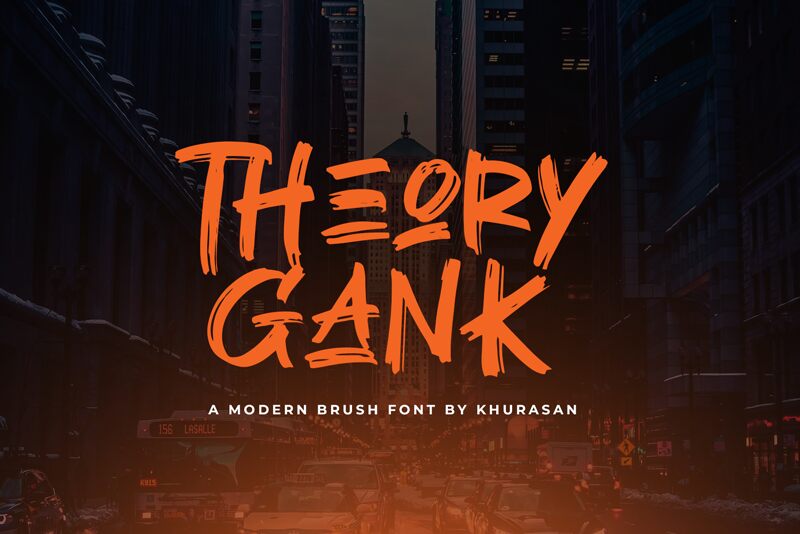
Theory Gank
Theory Gank, a dynamic creation by Khurasan, stands out with its expressive brush style that captures the spontaneity and energy of hand-painted strokes. The font's textured edges and varying line weights evoke a sense of artistic flair, making it an excellent choice for projects that require a personal touch with a modern twist.
Its aesthetic appeal lies in the balance between rawness and elegance, giving designers the freedom to craft messages that are both impactful and visually arresting. Whether used for bold headlines, attention-grabbing posters, or creative apparel designs, Theory Gank promises to infuse your work with an authentic brushwork charm that is versatile yet distinct.